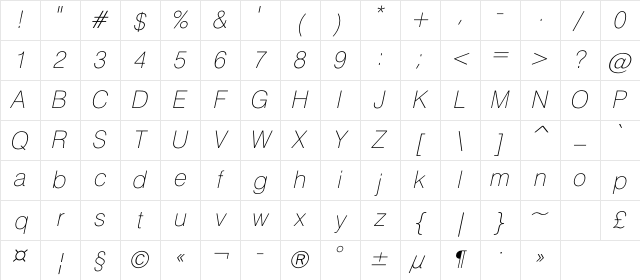
HeliosThinC is a composed and adaptable typeface that performs quietly and consistently across a wide range of design contexts. The slanted form adds forward momentum and visual energy. Its slender proportions lend an understated elegance to any composition.